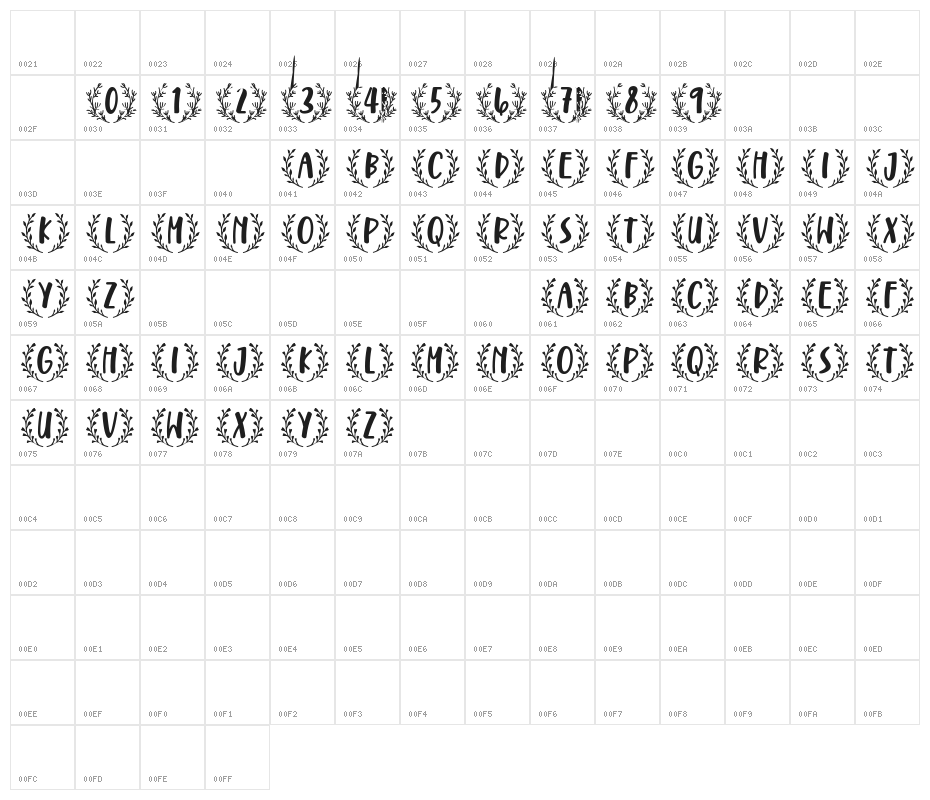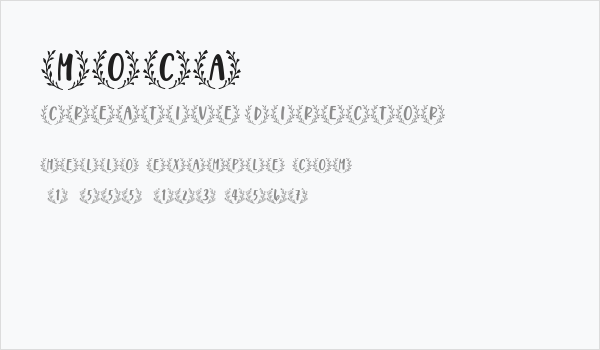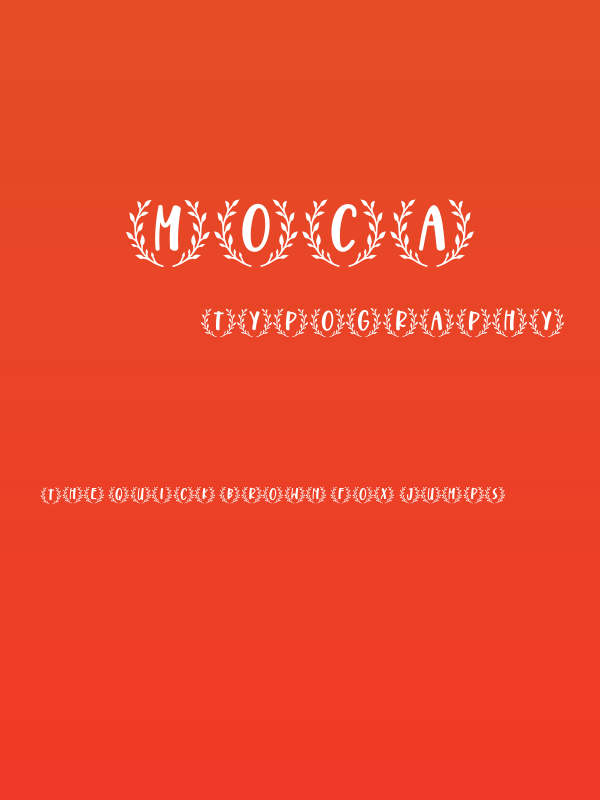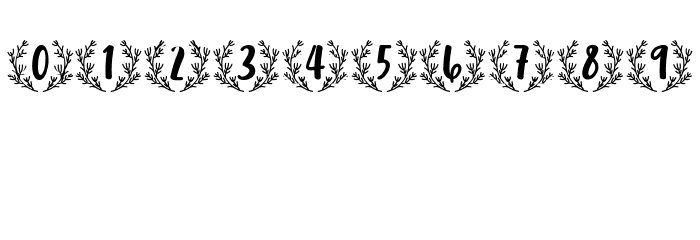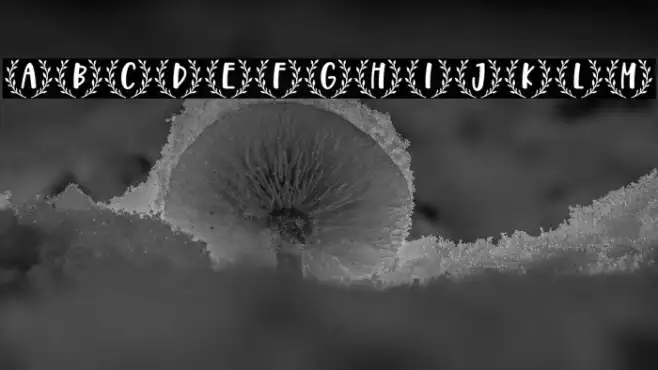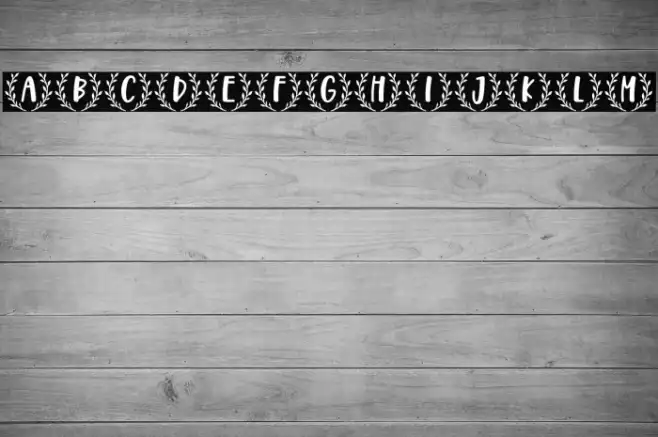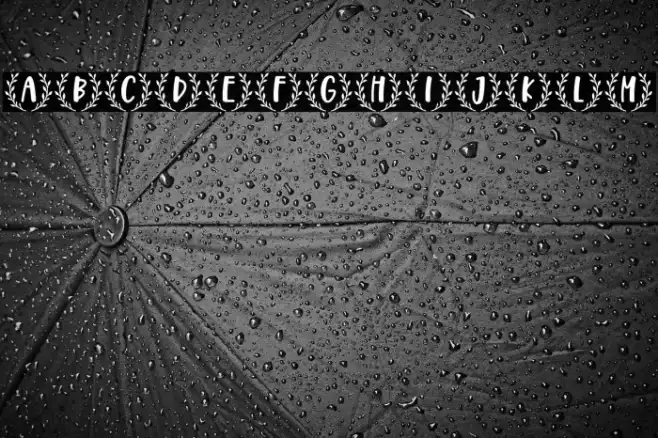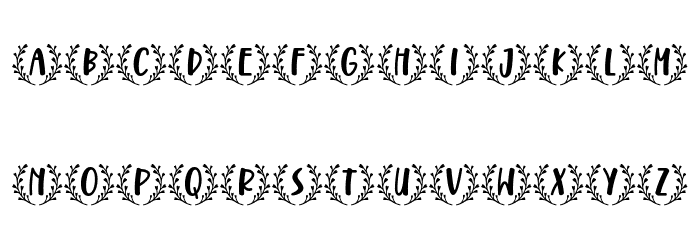
Moca Font
Moca Description
This decorative font features characters encased in a circular wreath of leaves, creating a whimsical and nature-inspired aesthetic. Each letter and number is centered within the wreath, providing a unique and cohesive look. The characters themselves are simple and sans-serif, allowing the intricate leaf design to stand out. The font is perfect for projects that require a touch of elegance and organic charm, such as wedding invitations, greeting cards, or eco-friendly branding. The consistent use of the wreath motif across all characters ensures a harmonious appearance, making it ideal for decorative purposes.
| Proposed Projects | Ideal for wedding invitations, greeting cards, eco-friendly branding, and decorative projects. |